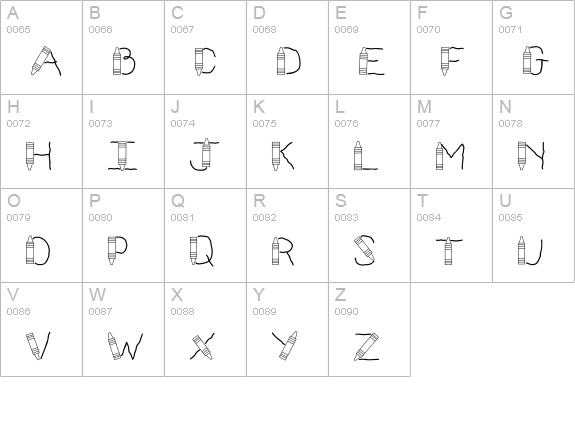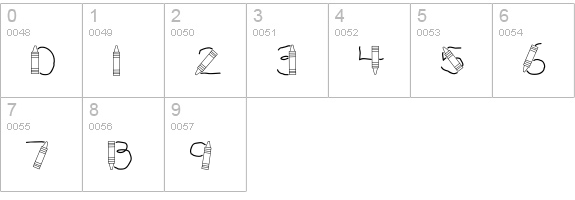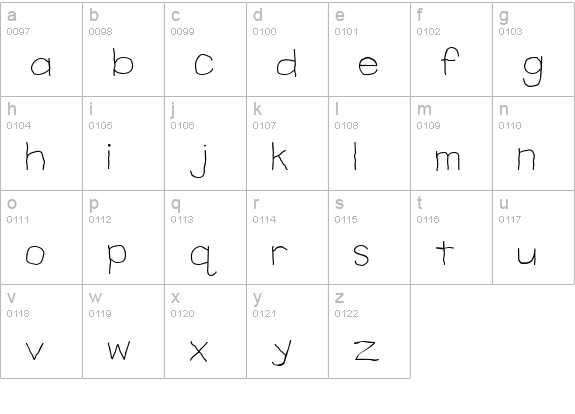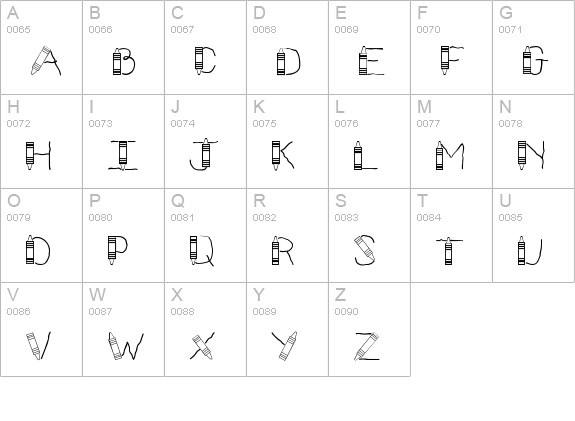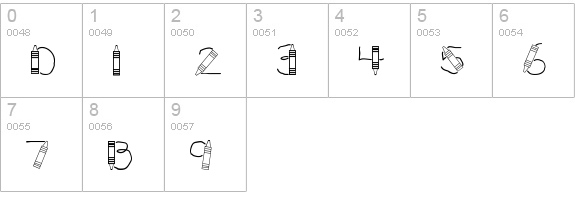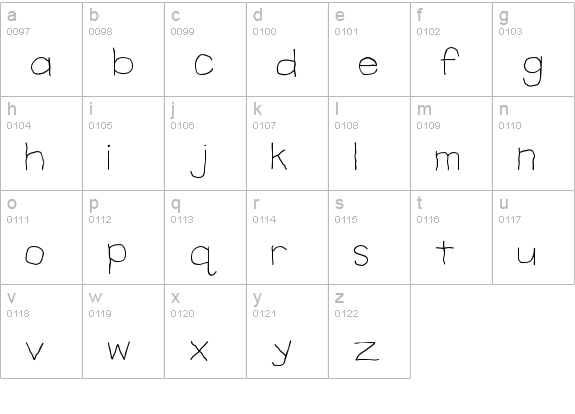
CK Crayons Font Details
Introducing CK Crayons font, a charming and playful typeface that captures the essence of childhood creativity and imagination. With its hand-drawn design and quirky characters, CK Crayons is perfect for adding a whimsical touch to any project. The irregular strokes and uneven lines give this font a unique and artistic feel, making it a standout choice for designs that need a fun and energetic vibe. The best part? CK Crayons font is available for free download at FontsMarket.com. Whether you're working on a school project, children's book, or any other creative endeavor, this font is sure to bring a smile to your face. So go ahead and unleash your inner child with CK Crayons font - the perfect way to add a touch of fun and playfulness to your designs.